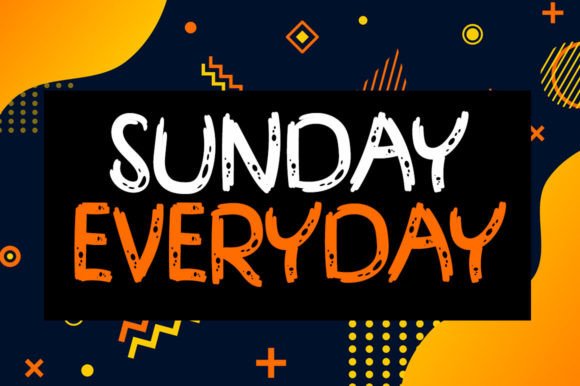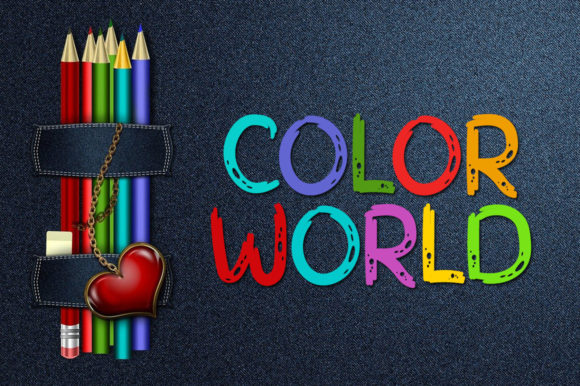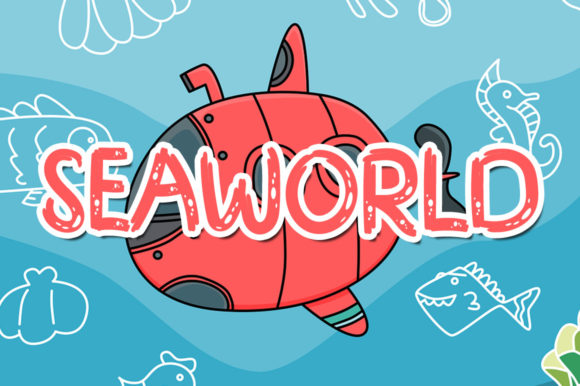
Introduction to Share Hearth Font Font
Fonts play a crucial role in design, and the Share Hearth Font font is a typeface that brings both character and versatility to any project. Whether you’re working on a branding project, a website, or a print design, the Share Hearth Font font offers a unique style that can elevate your work.
Share Hearth is a beautiful and sweet font.
It is fresh, clean, and elegant This font will look amazing in a great number of projects, both formal and informal.
Key Features of Share Hearth Font Font
Why Choose Share Hearth Font Font?
The Share Hearth Font font is more than just a typeface – it’s a design tool that helps you communicate your message with style and clarity. Its unique character set and versatile design make it suitable for a wide range of applications, from elegant invitations to bold headlines.
With its carefully crafted letterforms and balanced proportions, the Share Hearth Font font ensures readability and visual appeal across all mediums.
What makes Share Hearth Font font special?
The Share Hearth Font font stands out with its unique design, exceptional readability, and versatility across various design applications.